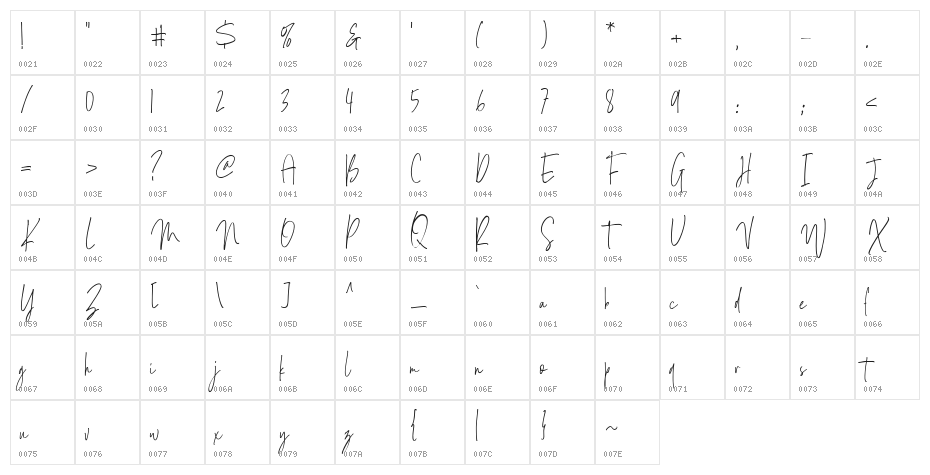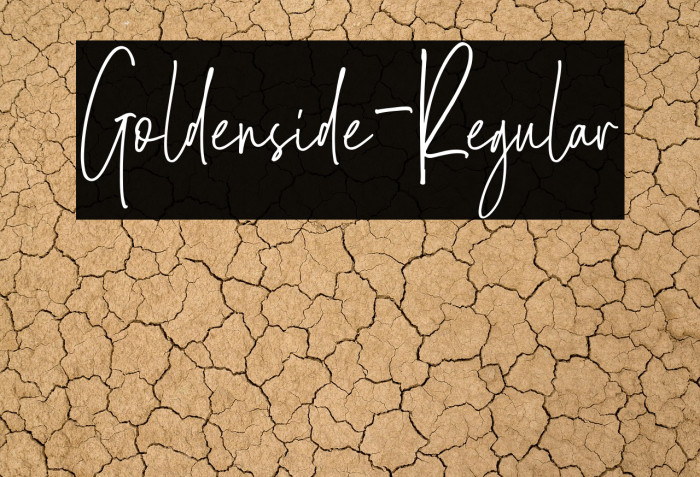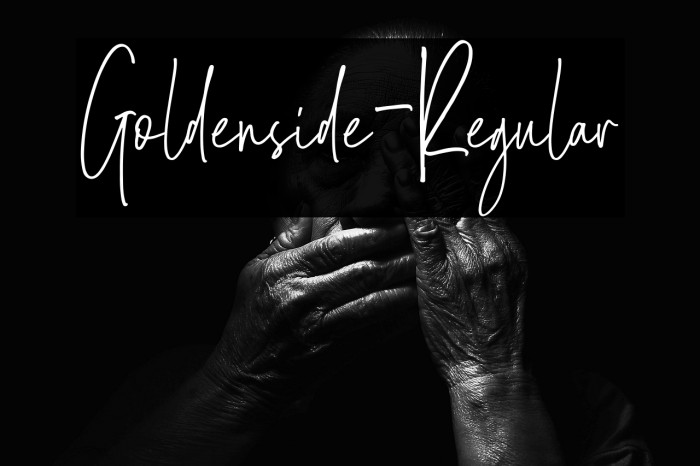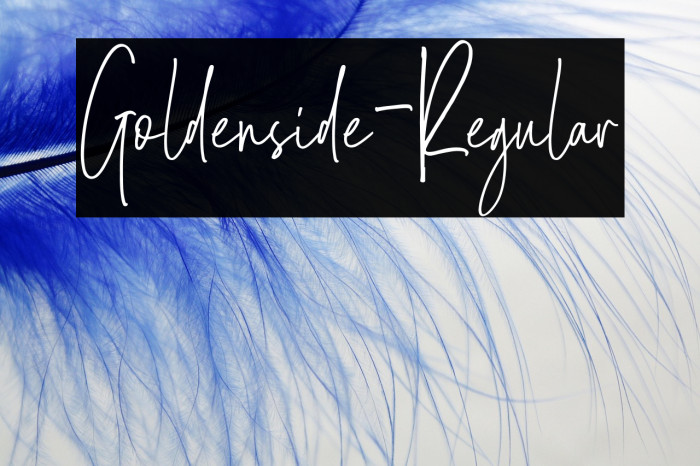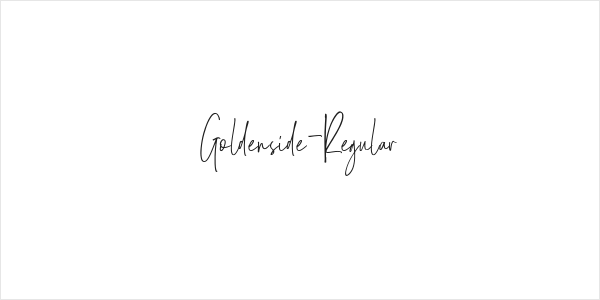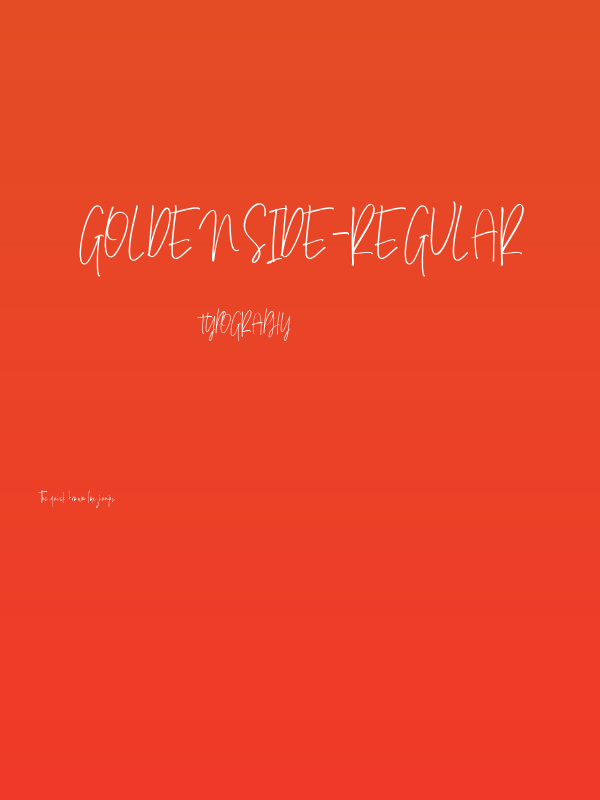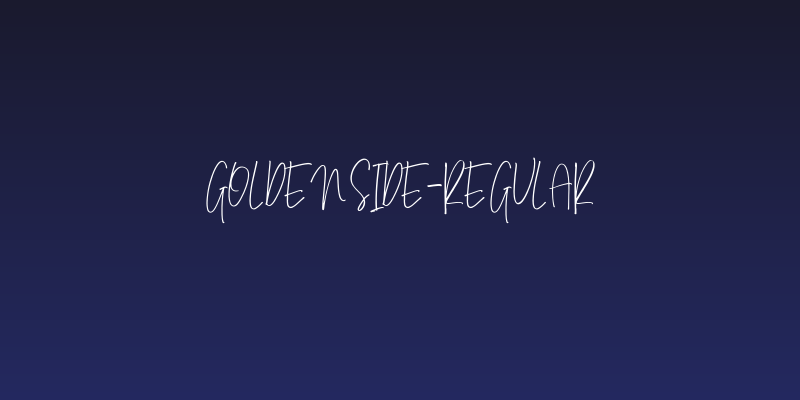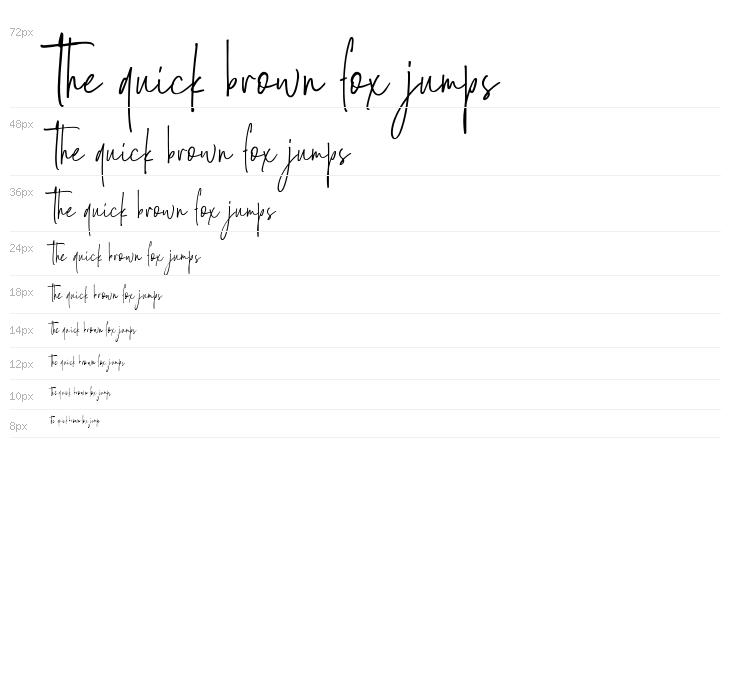
Goldenside-Regular Font
Goldenside-Regular Description
This font features a handwritten style with a casual and flowing appearance. The characters are slightly slanted, giving it a dynamic and lively feel. The strokes are thin and consistent, with a natural variation that mimics real handwriting. The uppercase letters are tall and elegant, while the lowercase letters maintain a smooth and connected script. Numbers and special characters follow the same fluid style, making the font versatile for various uses. Its informal yet sophisticated look makes it suitable for creative projects.
| Proposed Projects | Ideal for invitations, greeting cards, personal branding, and creative projects that require a personal touch. |